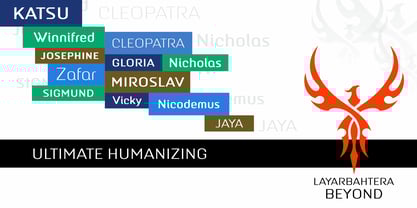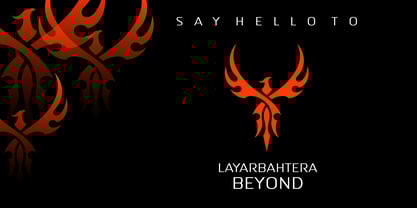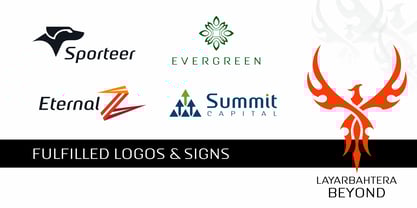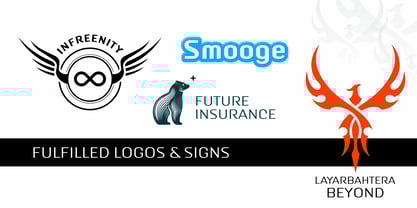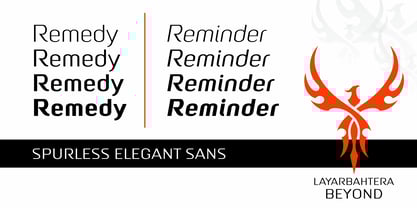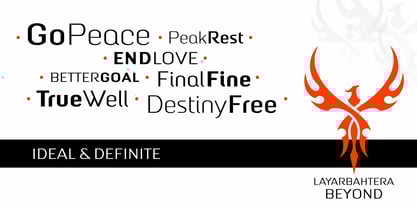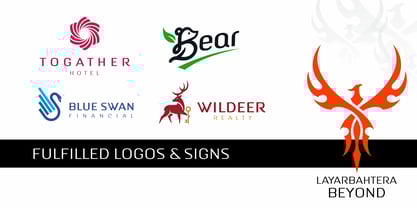
LayarBahtera Beyond
by LayarBahtera
The LayarBahtera Beyond Font Family was designed by - Morabira and published by LayarBahtera. LayarBahtera Beyond contains 40 styles and family package options.
A modern, fresh and unique geometric sans serif font or typeface which is elegant but friendly looking at the same time. It is suitable for multi-purpose usage including various styles of logo design from fun to serious logos, advertisement, poster, brochure, magazine headlines, and also legible for text document. The design style is spurless and minimalistic. Extended or expanded version or wide style is included.